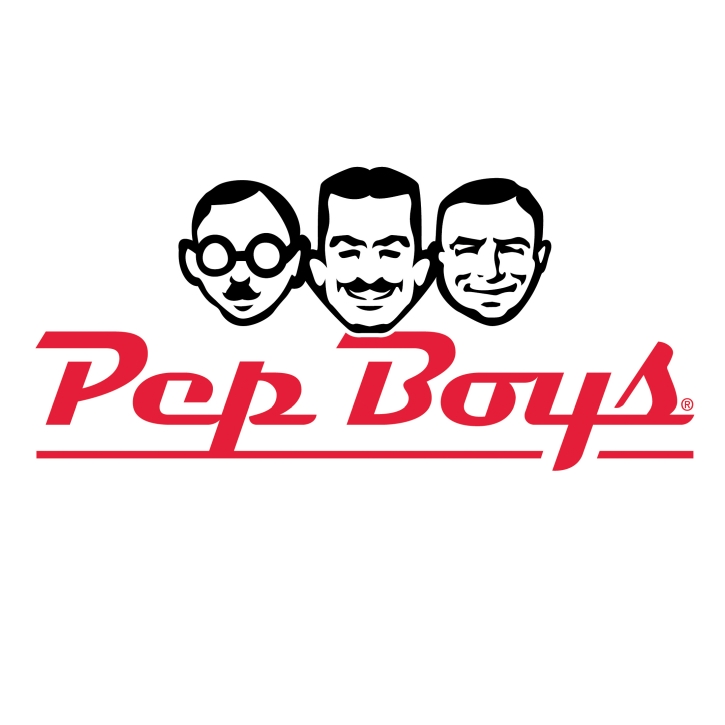
Pep Boys Font
AutomobilePep Boys is a chain of auto-parts stores based in the US. Founded as Pep Auto Supply by Emanuel "Manny" Rosenfeld, Maurice "Moe" Strauss, W. Graham “Jack” Jackson, and Moe Radavitz in 1921. The company specializes in tire sales, automotive, and fleet maintenance.
In 2013, EWI Worldwide designed the company's current logo, using the Magneto typeface. It is also utilized for the primary Cars franchise logos by Disney. The old logo's sans serif appears to be Univers 93 Extra Black Extended Oblique.